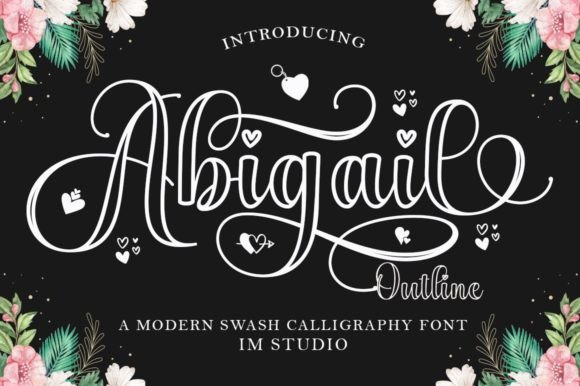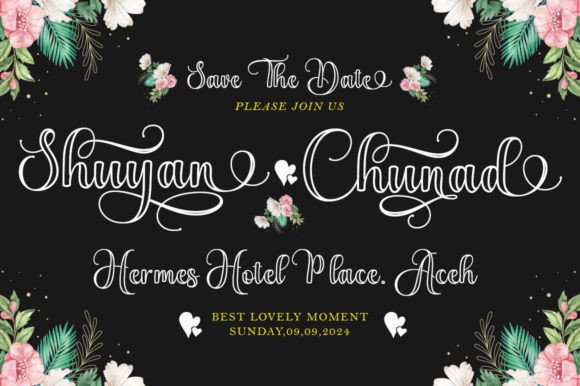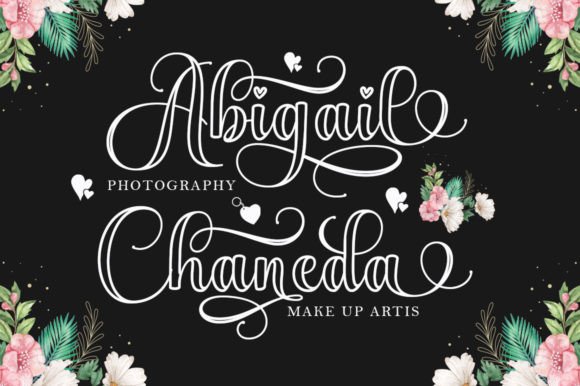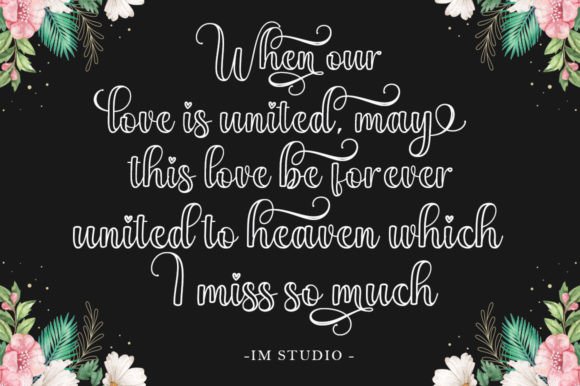
Abigail Outline Font: Cute Calligraphy for Wedding & DIY Design
About the Abigail Outline Font
Elevate your designs with Abigail Outline Font, a font that combines sophistication with readability. Abigail Outline is a cute, versatile, and flexible handwritten font. Warm, romantic, and jovial, this font will turn any of your project ideas into real works of art.
Abigail Outline’s playful, yet refined, personality makes it ideal for headlines, short-form text on invitations or packaging, and logos requiring a touch of hand-drawn charm. It excels in projects needing a friendly and approachable feel, such as children’s books, branding for artisanal goods, or social media graphics. However, its delicate outlines are less suitable for body text or UI elements where high readability is crucial.
Consider pairing Abigail Outline with a clean sans-serif like Lato for a modern contrast, or a classic serif such as Garamond for a more traditional balance. For a playful juxtaposition, a geometric sans-serif like Futura could also work well. Avoid pairing it with overly ornate or highly decorative fonts to maintain visual clarity.
The font’s overall aesthetic is best described as charming and approachable; its slightly irregular letterforms lending a unique, handmade quality without sacrificing legibility in short applications.
Abigail Outline Font Usage Examples
Abigail Outline Font Example